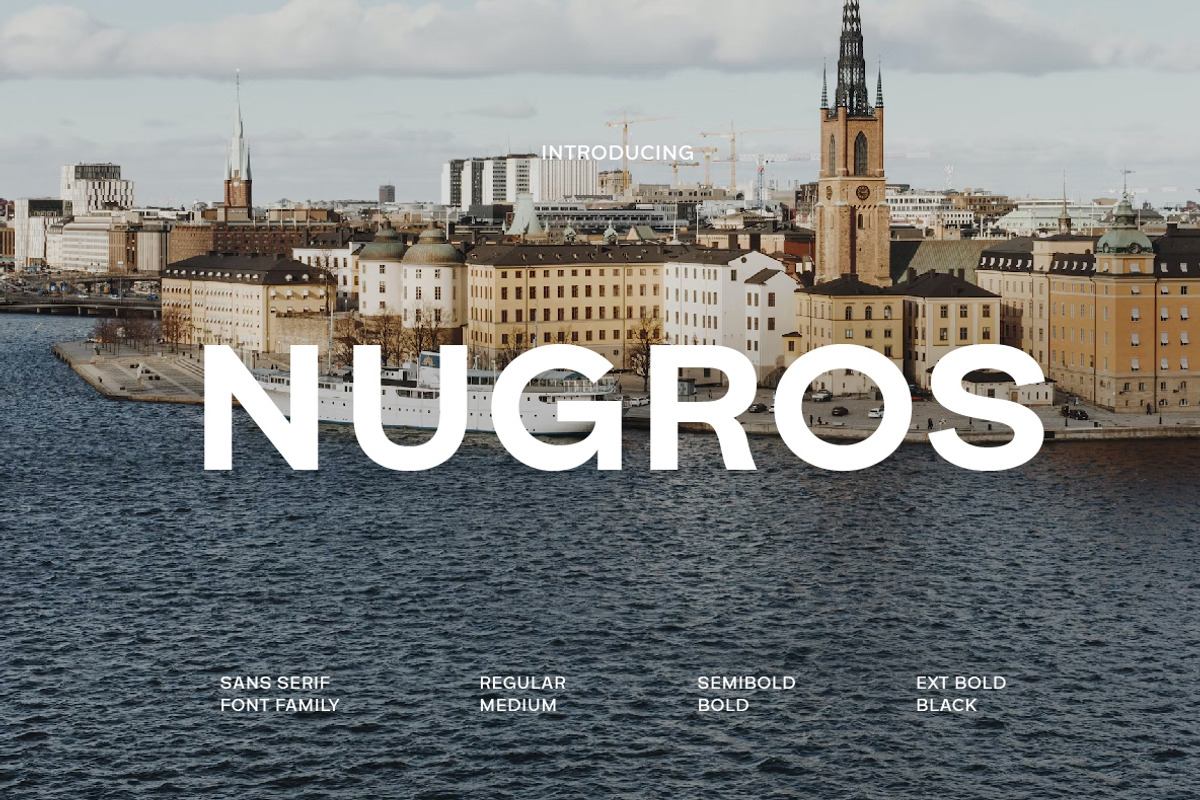
Modern, clean, and highly versatile, Nugros Sans Serif Font Free Download is a sleek typeface designed to bring clarity and professionalism to your designs. Perfect for logos, branding, websites, editorial layouts, and more, this font offers a minimalist, contemporary aesthetic that works for a variety of creative projects.
With its smooth curves, balanced proportions, and geometric structure, Nugros is ideal for both display text and body copy. Its modern appeal makes it suitable for both digital and print applications, adding a polished, sophisticated feel to your typography.